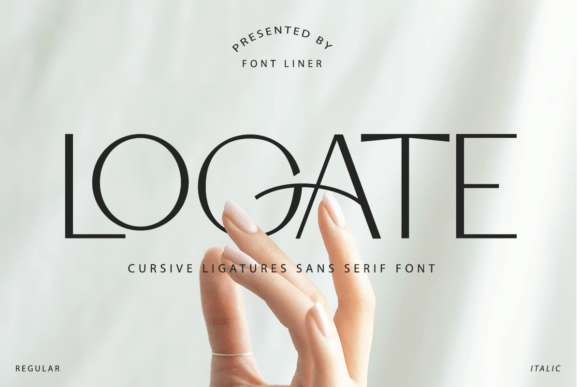
Logate: A Modern Sans Serif for Bold Branding
First Impressions of Logate
When I first saw Logate, it felt like a breath of fresh air in the world of modern typography. It carries a clean, contemporary vibe that immediately makes you think of innovation and clarity. The letters have a slight geometric edge, but they’re not too rigid—there’s a subtle softness in the curves that gives them a friendly yet professional appearance.
This font has a visual personality that leans toward minimalism without feeling lifeless. It's the kind of typeface that can effortlessly bridge the gap between digital and print media. It feels natural on screens and paper alike, which is a big plus when considering its versatility across different mediums.
Real-World Performance
As a designer who regularly works with fonts in various contexts, I tested Logate in several real-life scenarios. From logo design to packaging, it held up well. In logo design, it delivered a strong, memorable mark that could easily become a brand identity cornerstone. Its simplicity made it easy to scale and adapt into icons or monograms.
In packaging design, Logate added a sleek touch to product labels and boxes. It paired well with both high-end and casual products, making it a versatile choice for different market segments. For posters and flyers, the font performed admirably as a headline font, drawing attention without overwhelming the viewer.
On social media graphics and digital ads, Logate maintained readability even at smaller sizes, which is crucial for platforms where text often gets compressed. It also looked great in Canva templates and Cricut projects, proving its usefulness for both digital and printable design assets.
For web design, I found it particularly effective in website headers and blog graphics. It didn’t feel too heavy for long blocks of text, and its spacing was just right for maintaining visual balance.
Where to Use Logate with Caution
While Logate is incredibly versatile, there are certain applications where it should be used more thoughtfully. For instance, when using it in large headlines, it’s best to avoid overcomplicating the layout. Let the font speak for itself with enough breathing room around it.
Short phrases and brand marks benefit from Logate’s crisp lines, but longer passages may need additional spacing or line breaks to maintain readability. When incorporating it into quotes or decorative accents, ensure it doesn’t clash with other elements in the design.
If you're aiming for premium packaging or social posts, Logate can elevate the look, but always test it against your brand colors and imagery to confirm compatibility. For supporting text, consider pairing it with another font to create contrast and hierarchy.
Readability and Brand Impact
One of the most important aspects of any font is how it affects readability. Logate is legible at various sizes, especially in black and white, which is a key test for any designer. When viewed in small sizes, such as on mobile screens or printed materials, it remains clear and easy to read.
Its impact on brand consistency is significant. Because of its clean and modern appearance, Logate helps reinforce a sense of professionalism and trust. This makes it an excellent choice for brand identity work, especially for businesses looking to convey a forward-thinking image.
Visually, Logate contributes to a visual mood that’s both approachable and confident. It can subtly influence audience engagement by creating a sense of order and clarity in design compositions.
Design Notes for Using Logate
Before committing to Logate in a project, take some time to test it thoroughly. Try it in black and white to see how it holds up without color. Check its performance at small sizes to ensure it remains readable in all contexts.
Try it on real mockups to see how it interacts with your brand colors, images, and layouts. Compare uppercase and lowercase versions to find the right tone for your message. Review spacing carefully—adjusting letter and word spacing can make a big difference in how the font looks and feels.
Experiment with font pairing by testing it beside a serif font for contrast, a sans serif font for cohesion, a script font for elegance, or a handwritten font for a more personal touch. If you're using it alongside a display font, ensure the two complement each other rather than compete.
Final Thoughts
Logate is a premium font that brings a modern edge to any design project. Whether you're working on editorial design, packaging design, or digital products, it offers a clean, professional aesthetic that aligns well with current trends in modern typography.
It’s a creative font that can enhance brand identity and support a wide range of design assets. As a designer, I recommend giving it a thorough test in your workflow before finalizing any project. With the right approach, Logate can be a valuable addition to your design toolkit.